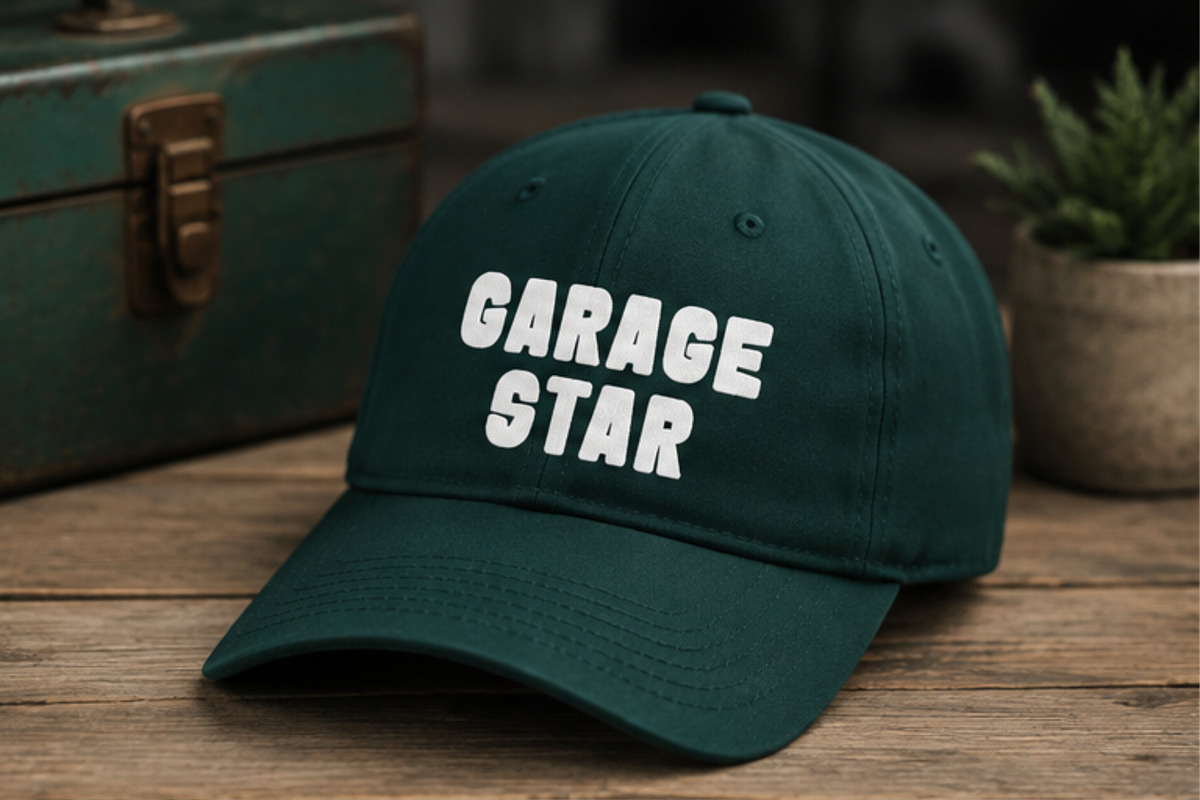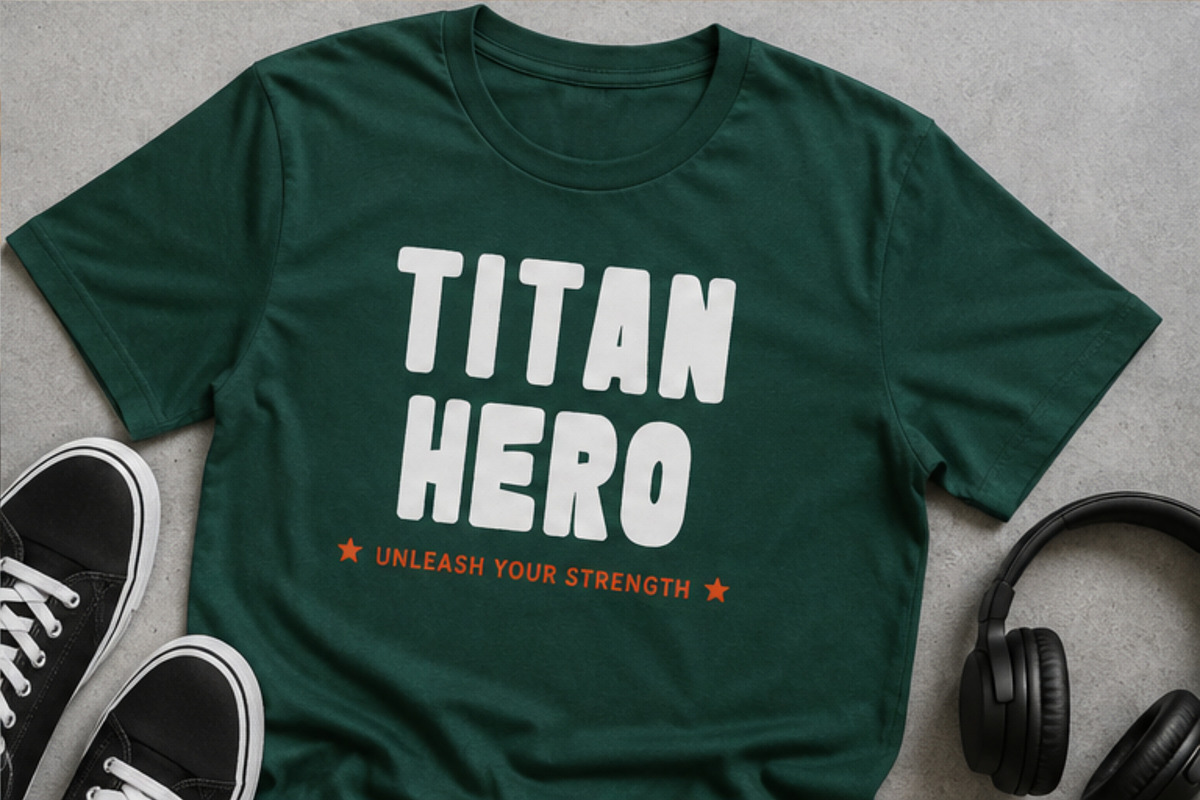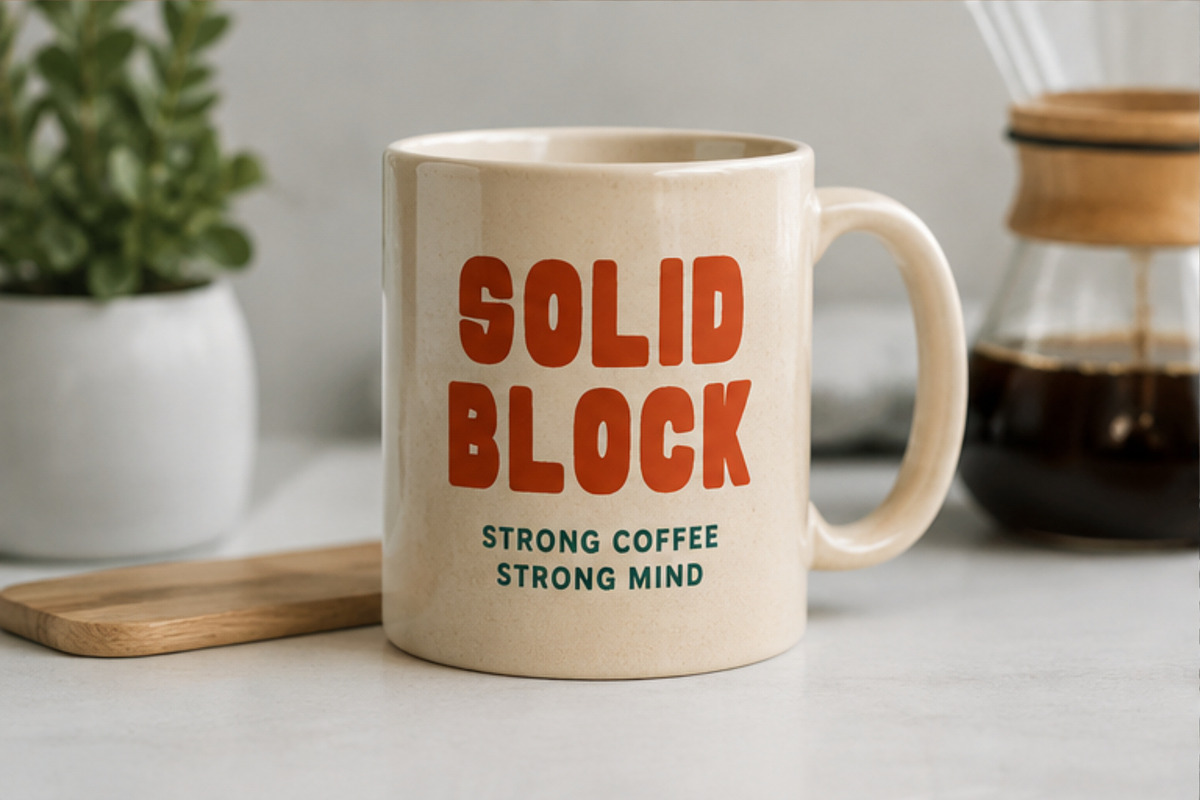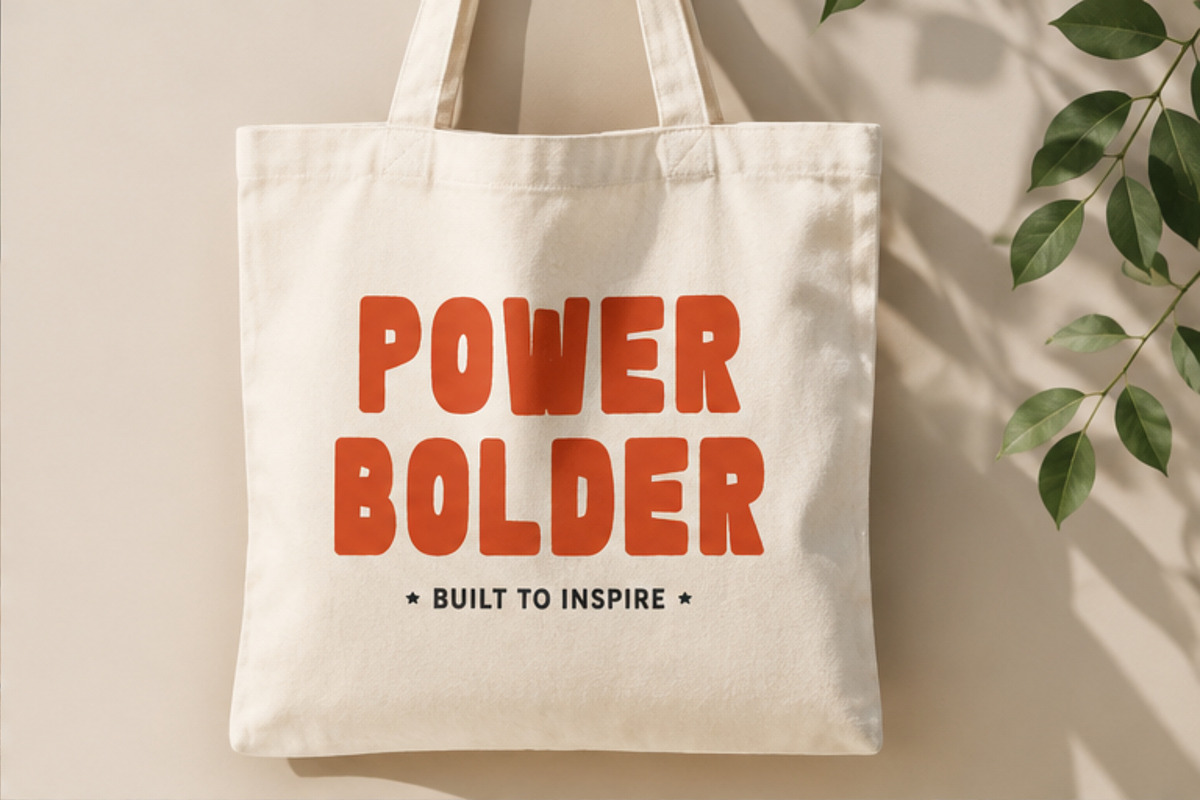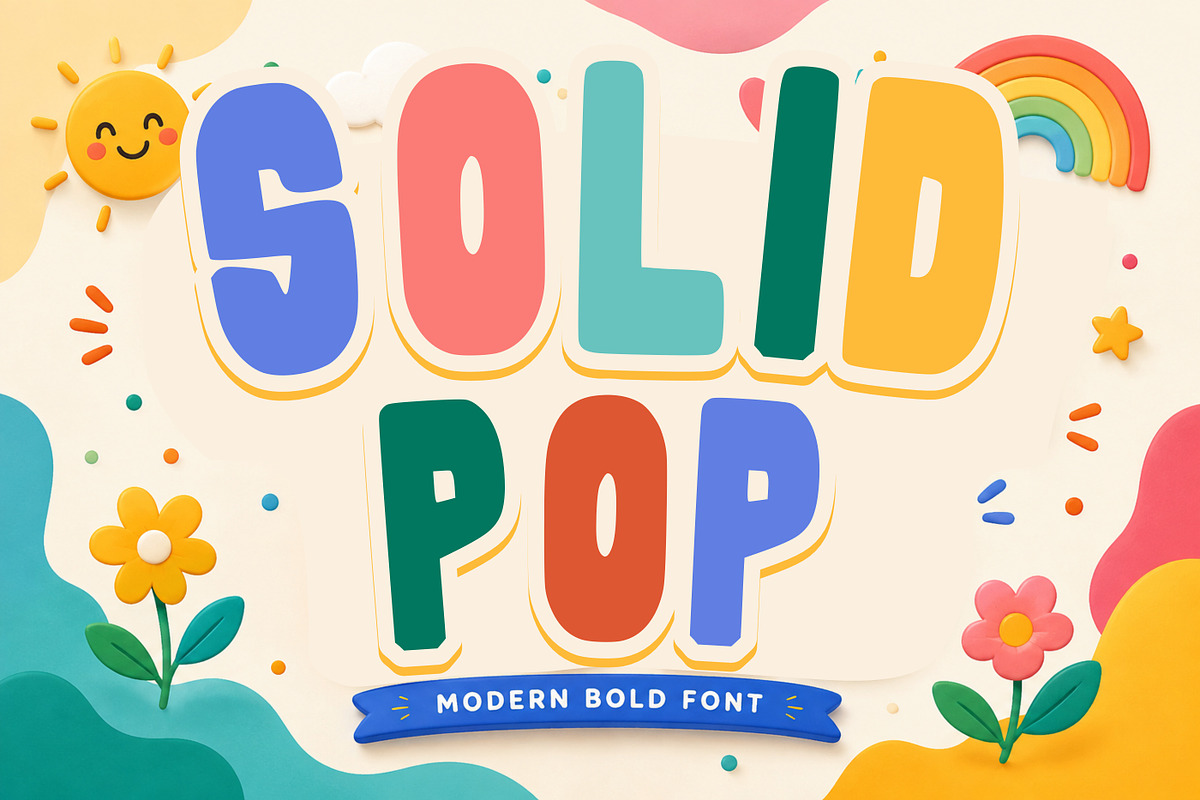
Solid Pop
Solid Pop a modern heavy display typeface designed to make your words stand out. Its thick, sturdy characters and slightly playful shapes create a cheerful yet confident visual style that works beautifully across both digital and print projects.
Perfect for creating bold headlines, logos, T-shirt designs, posters, signs, labels, stickers, packaging, invitations, children’s designs, sports graphics, and more.
Perfect For: • Logo & Branding • T-Shirt & Apparel Design • Posters & Flyers • Stickers & Labels • Packaging Design • Social Media Graphics • Children’s Designs • Sports & Mascot Designs • Headlines & Typography • Merchandise • Cricut & Cutting Projects • Print-on-Demand